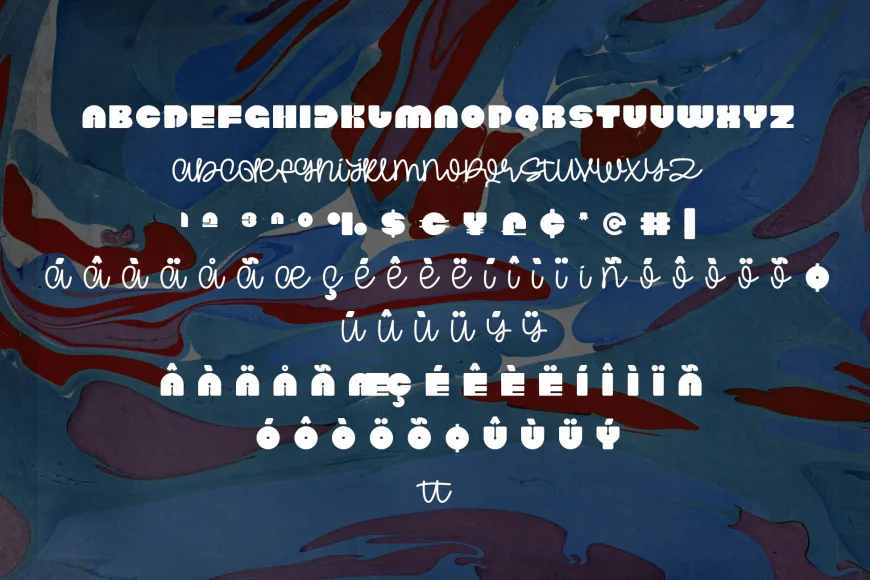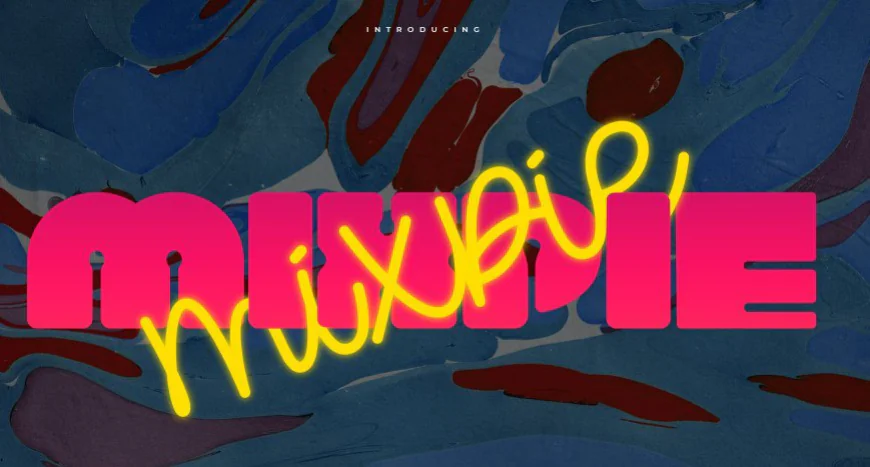
Mixpie is a display font that blends bold and script styles, making it perfect for products, branding, social media, logotypes, and more.
Mixpie is a display font that blends bold and script styles, making it perfect for products, branding, social media, logotypes, and more. It includes standard English letters, numbers, punctuation, and various accents to support multiple languages.